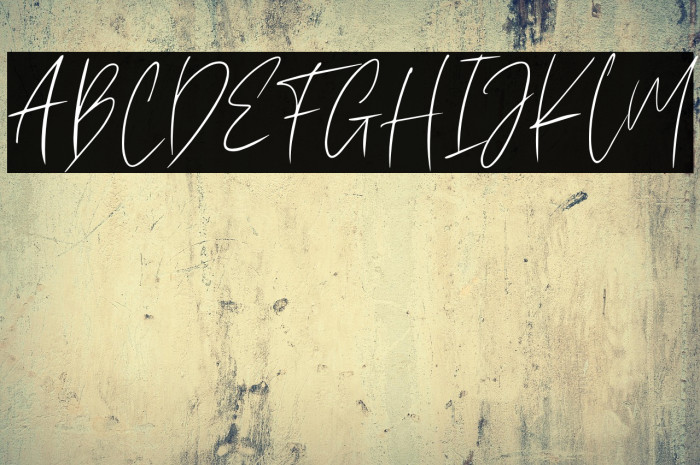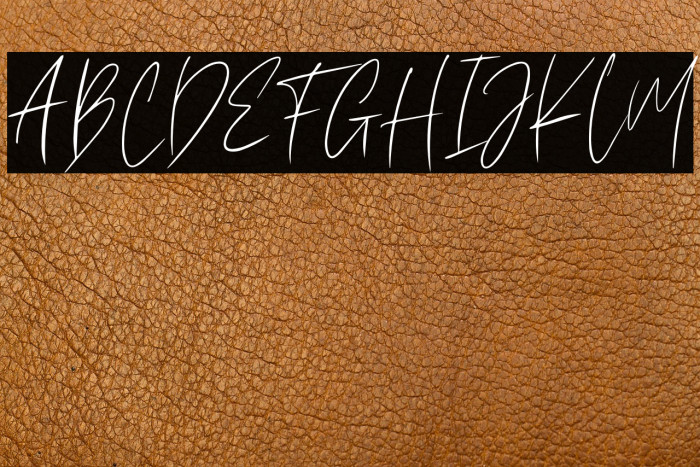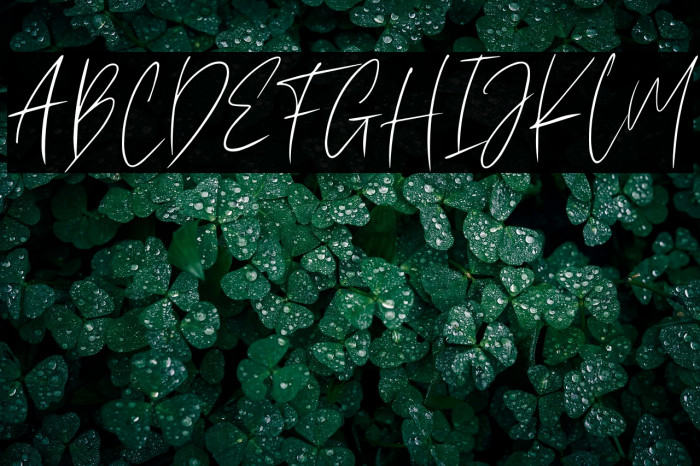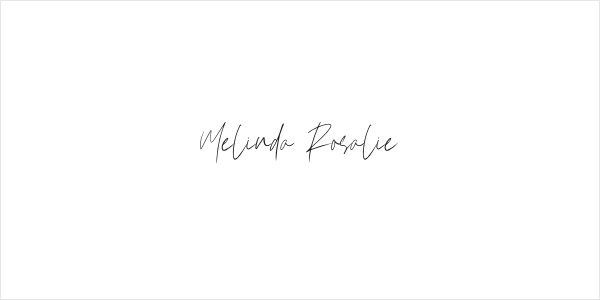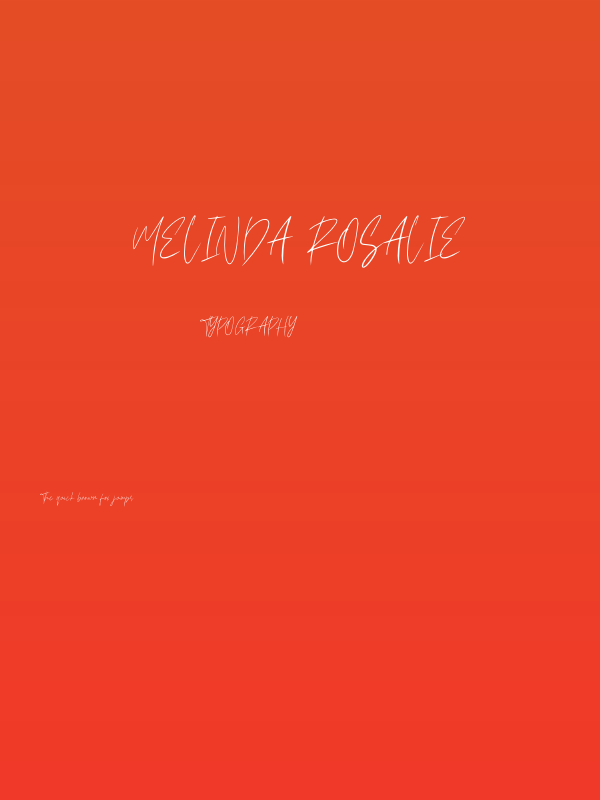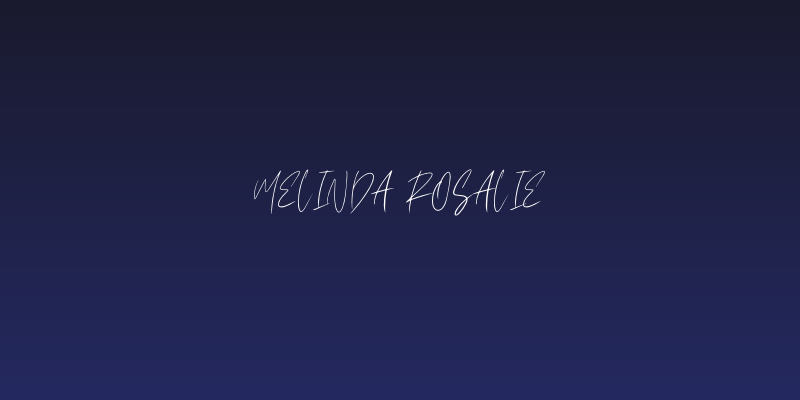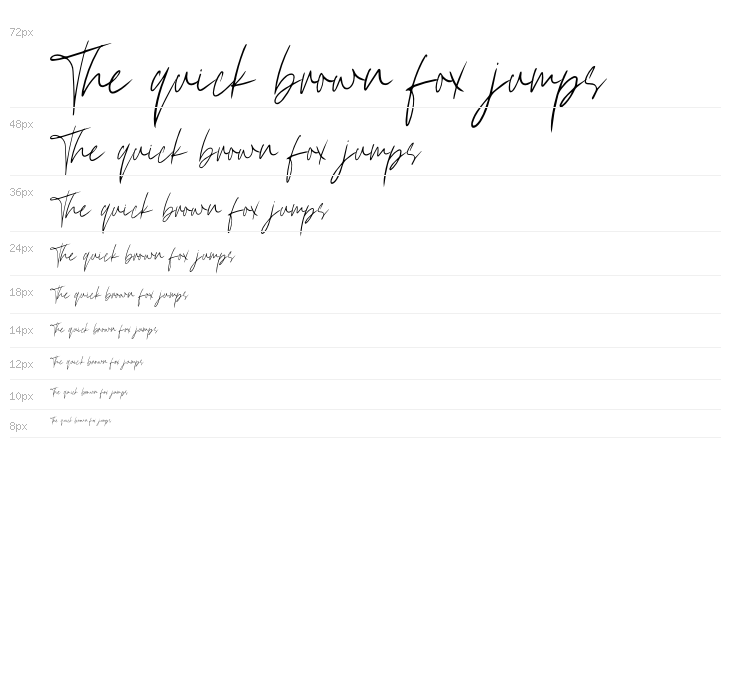
Melinda Rosalie Font
Melinda Rosalie Description
This font exudes a lively and expressive handwritten style, characterized by its fluid and dynamic strokes. The letters are crafted with a natural flow, giving an impression of personal touch and spontaneity. The uppercase letters are tall and slightly slanted, while the lowercase letters maintain a consistent rhythm with elegant loops and curves. The numerals and special characters follow the same energetic style, making the font versatile for various creative applications. Its overall appearance is both modern and artistic, suitable for projects that require a personal and informal touch.
| Overall Style | Modern, Artistic |
| Proposed Projects | Ideal for personal branding, invitations, greeting cards, and creative projects that require a personal touch. |